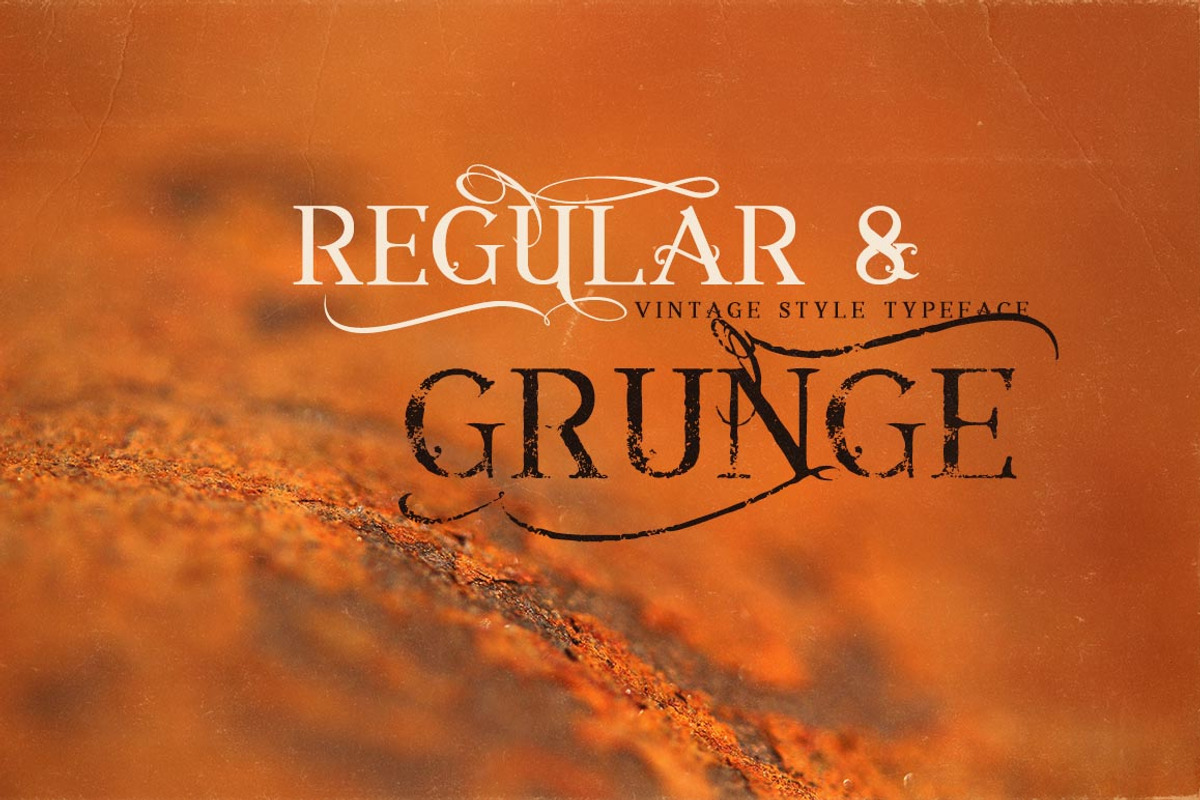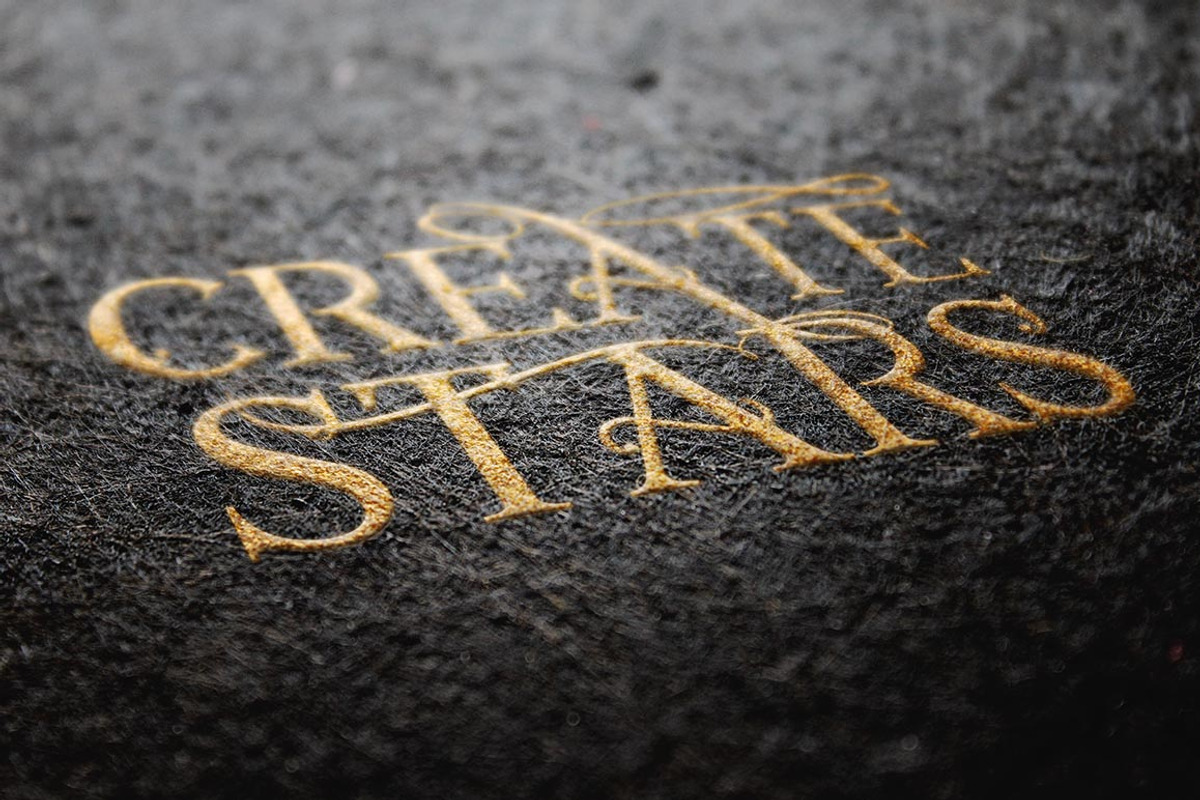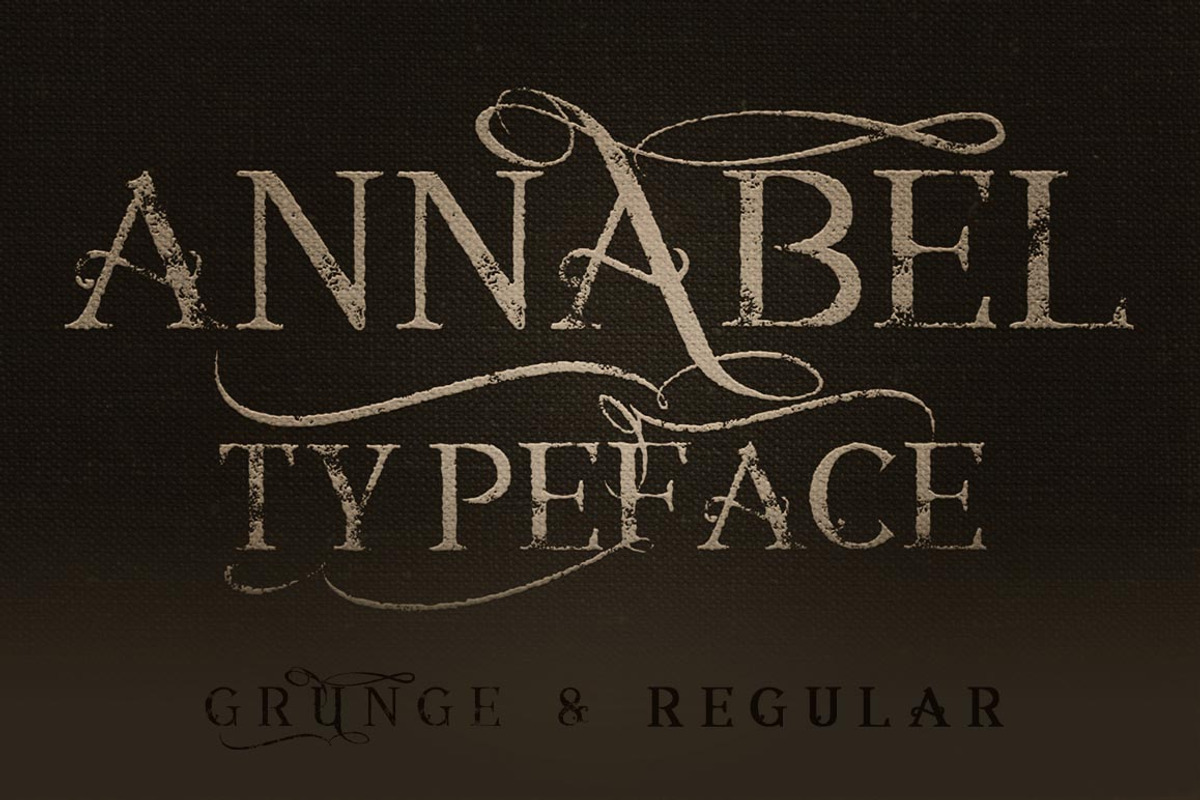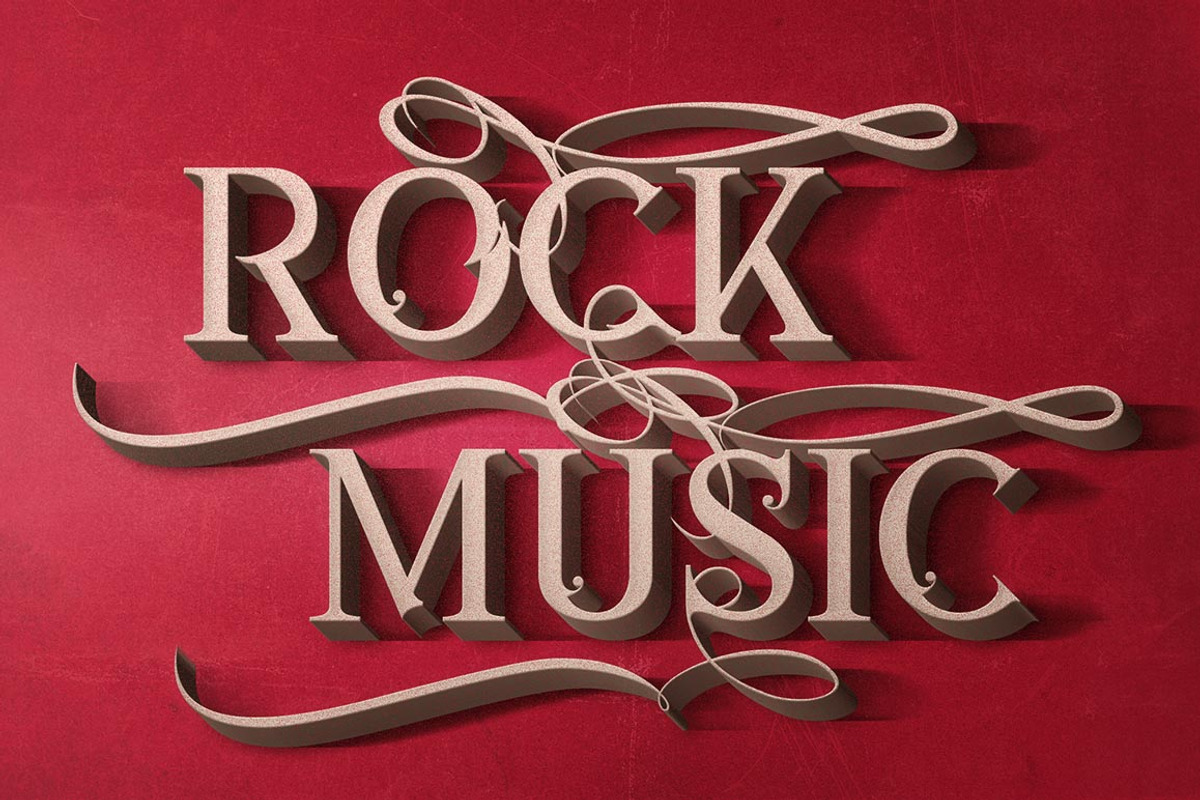
Annabel Font
Annabel Font by Cruzine is a font selected for branding, posters, packaging, typography.
Why Annabel Font is worth a look
Annabel Font by Cruzine fits naturally into Branding, posters, packaging, typography.